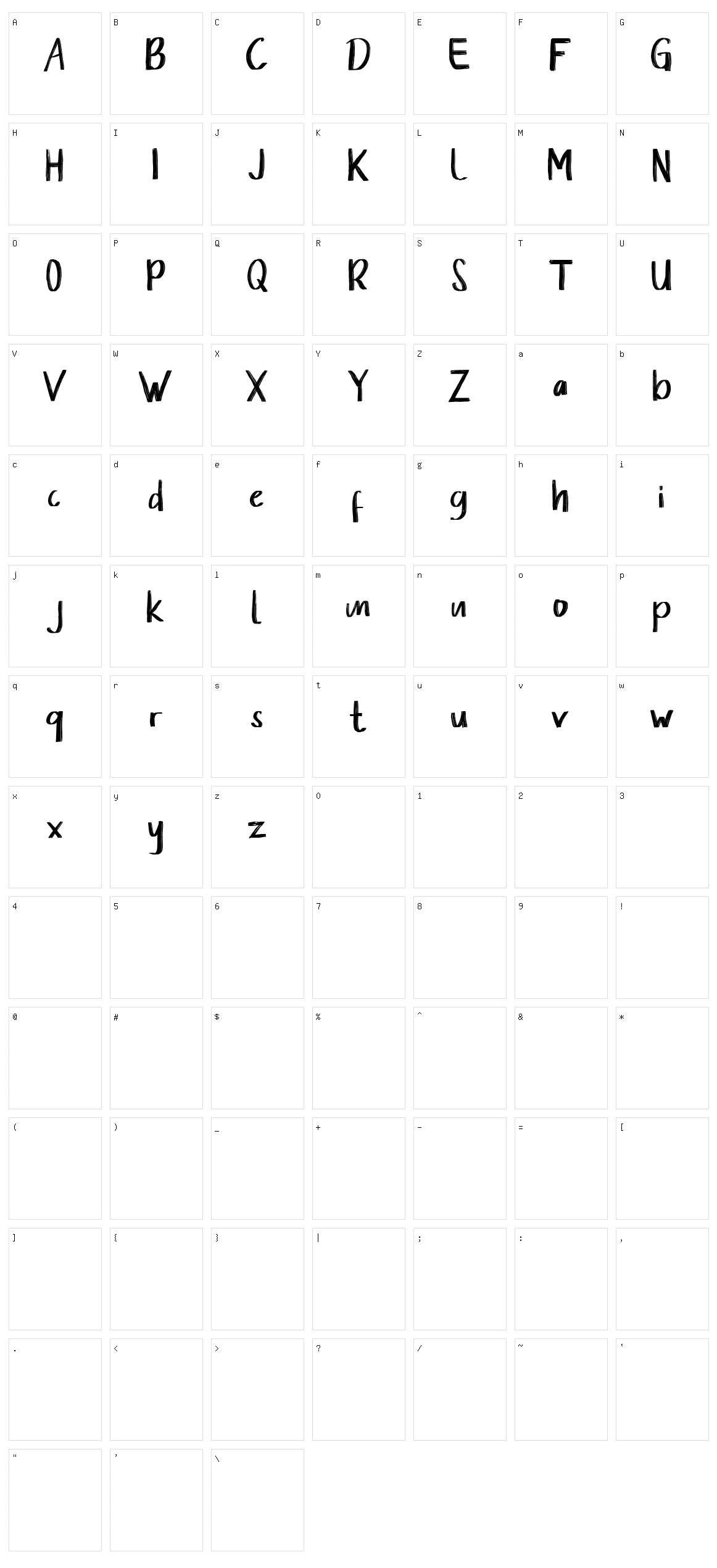
The free font Senorita is carefully designed by Say Studio, showcasing a thoughtful balance of creativity and usability and falls under the Script font style. When you download the ZIP file, it contains only 88.18 KB of font files, making it lightweight and quick to download. Please review the license details below to understand permitted usage and distribution rights. If license information is not available, we recommend using this font for personal projects only or contacting the author directly for commercial usage permissions.